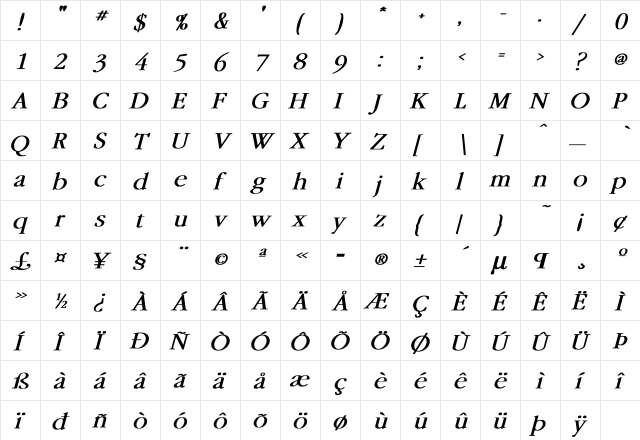
Marlowe Bold Italic
Design Context for Marlowe Typeface
Marlowe is a composed and adaptable typeface that performs quietly and consistently across a wide range of design contexts. Its italic angle brings a sense of urgency and motion to the letterforms. Its bold stroke weight gives it real presence on the page.
Pro Tip: Use Marlowe for emphasis, pull quotes, and subheadings where its slanted energy can add rhythm to the layout.